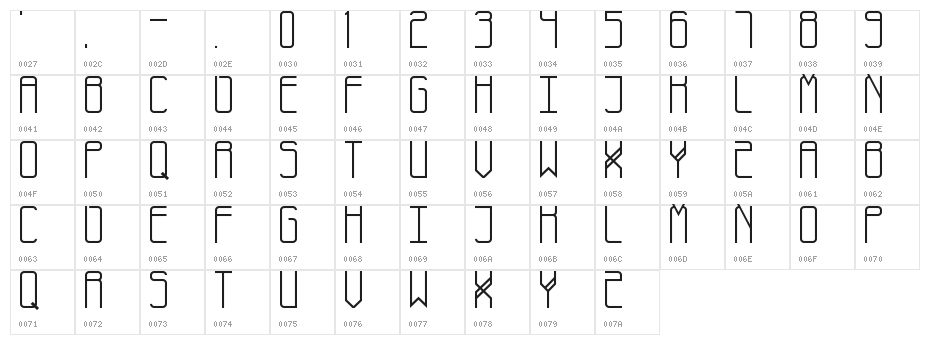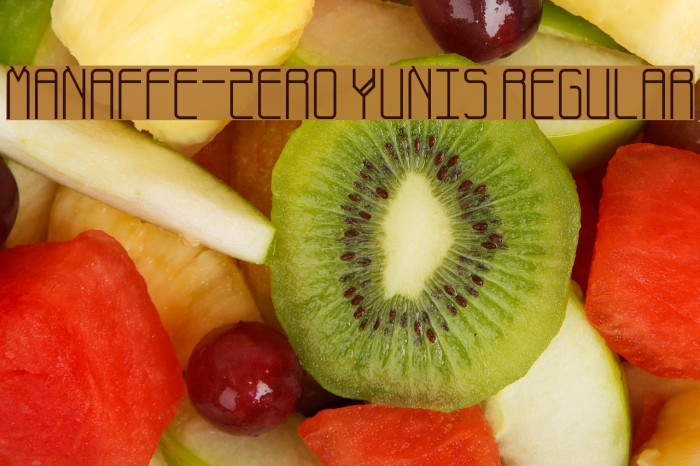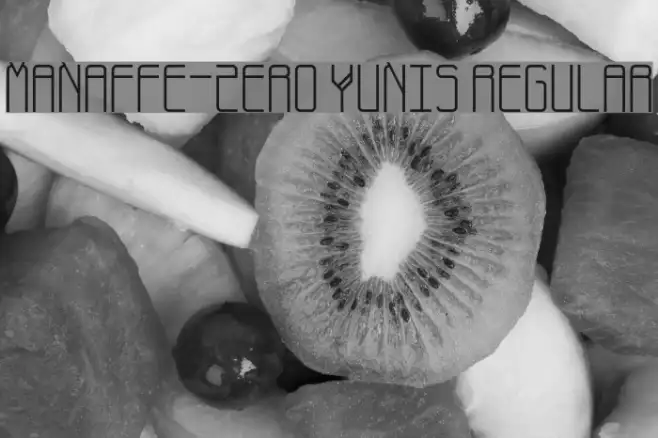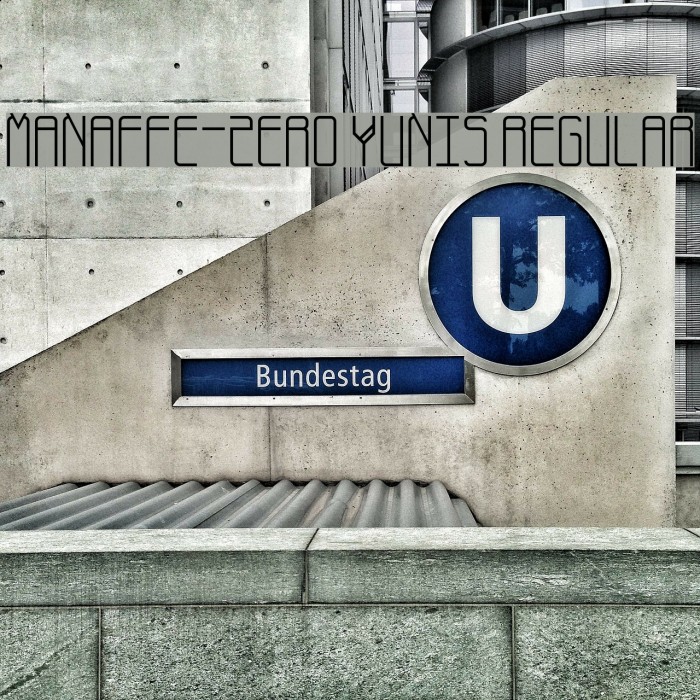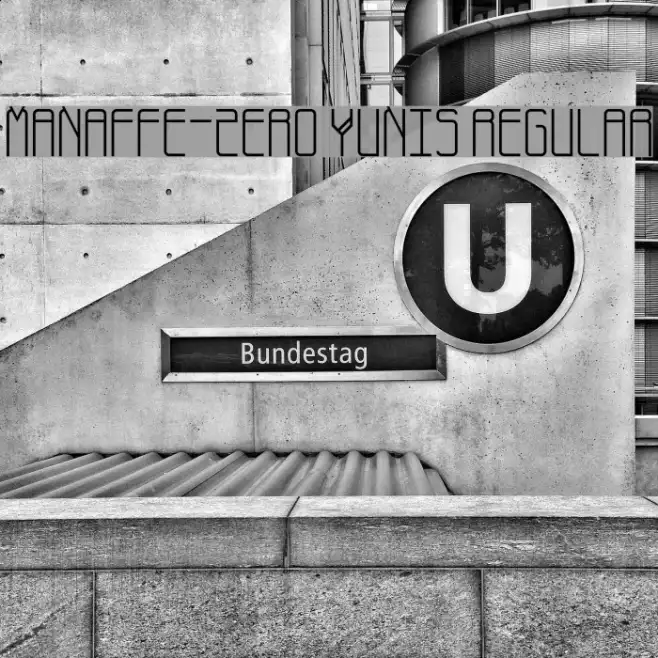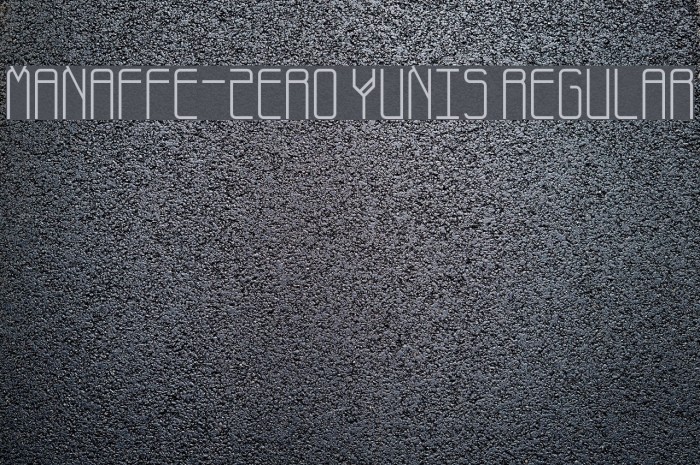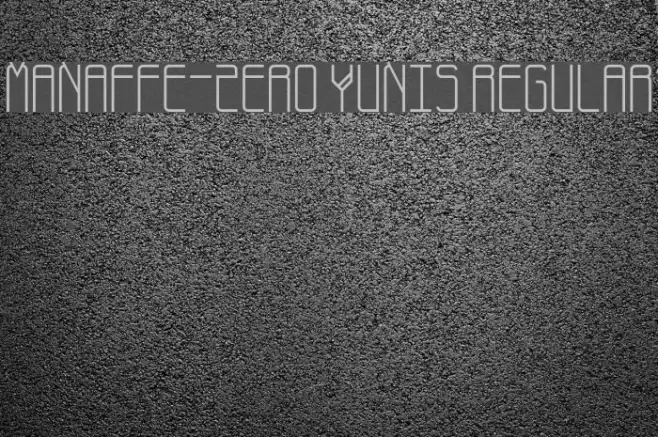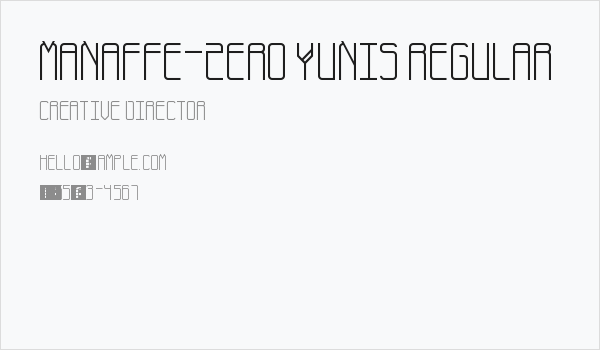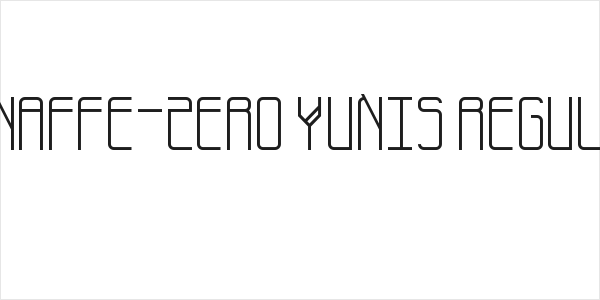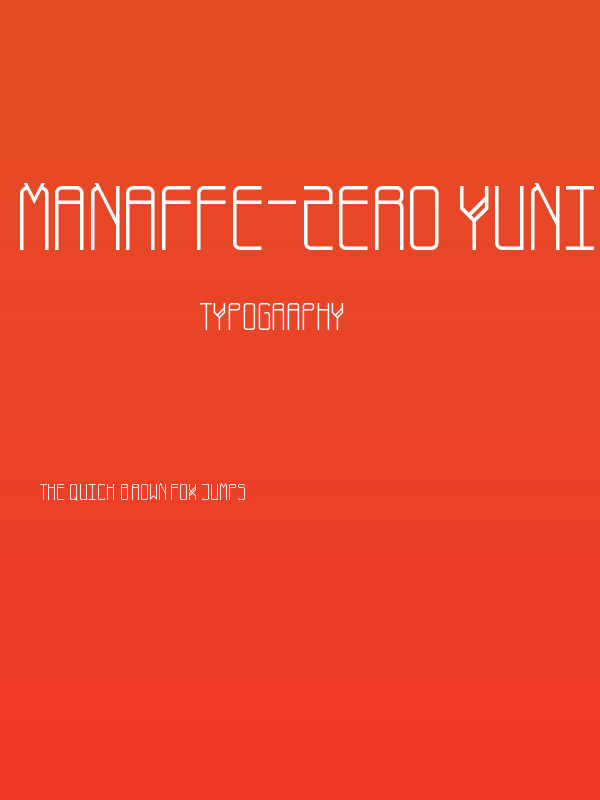
Manaffe-Zero Yunis Regular Font
Manaffe-Zero Yunis Regular Description
This font features a modern, geometric design with clean lines and a structured appearance. The characters are constructed with consistent stroke widths, giving it a uniform and balanced look. The uppercase and lowercase letters share a similar height, contributing to its compact and cohesive style. The numerals and special characters maintain the same geometric aesthetic, ensuring visual harmony across all elements. This font is ideal for projects that require a contemporary and minimalist touch, offering clarity and readability.
| Proposed Projects | Ideal for branding, digital interfaces, and modern print designs. |